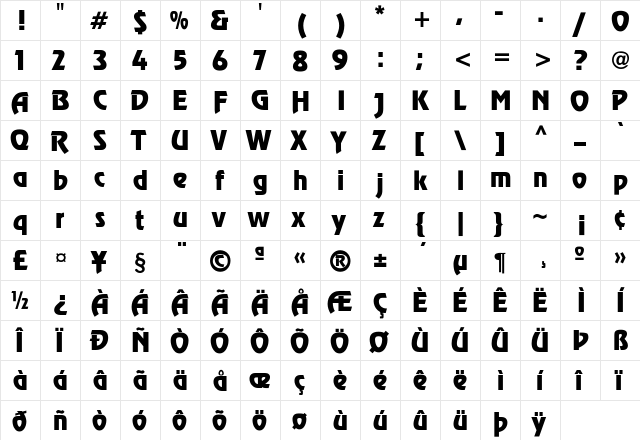
Announce Regular
Design Context for Announce Typeface
Announce is a composed and adaptable typeface that performs quietly and consistently across a wide range of design contexts.